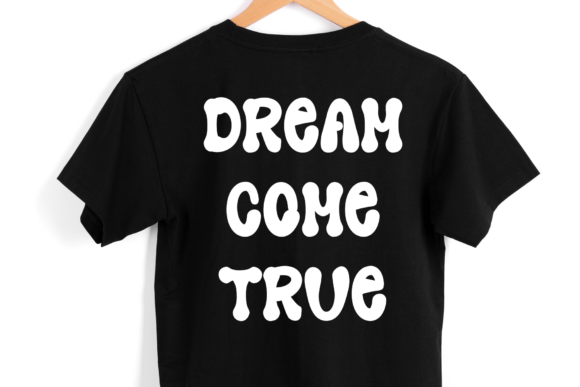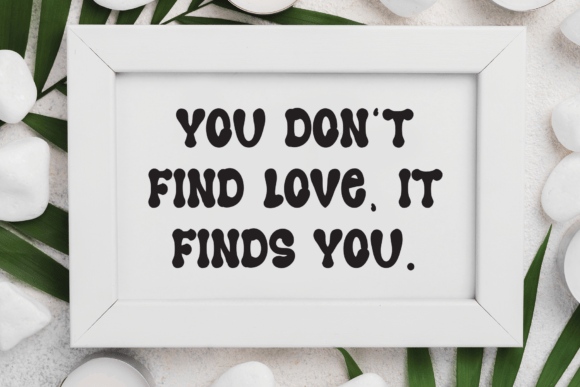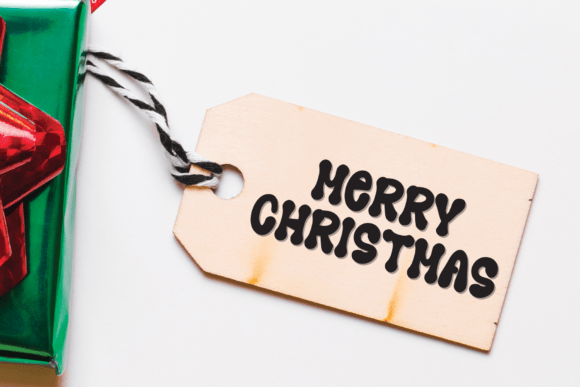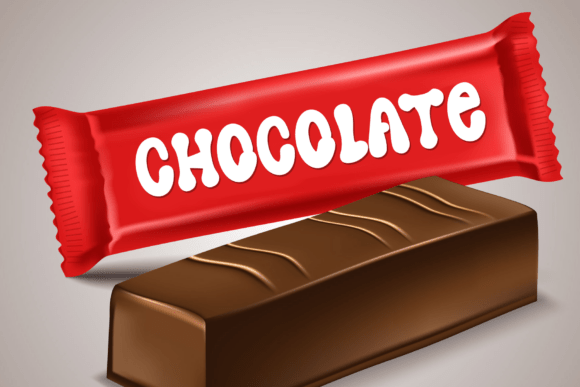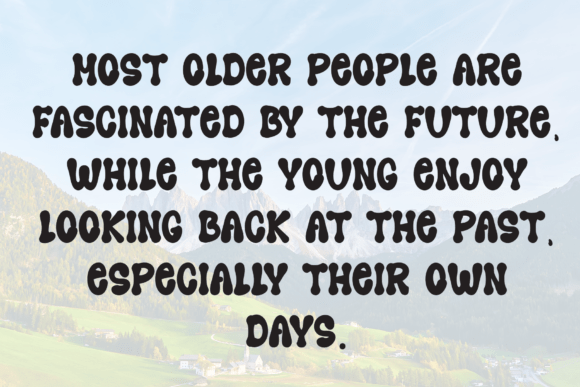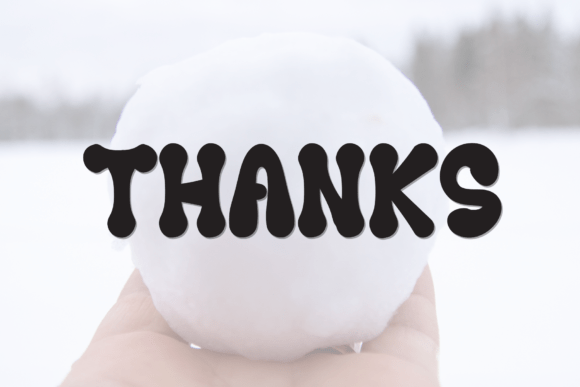
Introduction to Snow Balls Font
Get ready for some winter fun with the Snow Balls font .
This โplayful styleโ typeface features thick, round, and bouncy letterforms that look like they were carved out of fresh snow The Snow Balls typeface is incredibly friendly and approachable, making it perfect for children’s winter events, toy packaging, and seasonal sales.